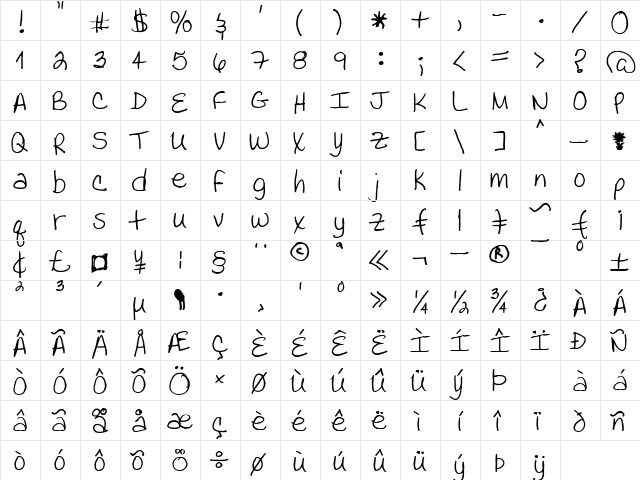
FG Svea Normal
Design Context for FG Svea Typeface
FG Svea is a composed and adaptable typeface that performs quietly and consistently across a wide range of design contexts.